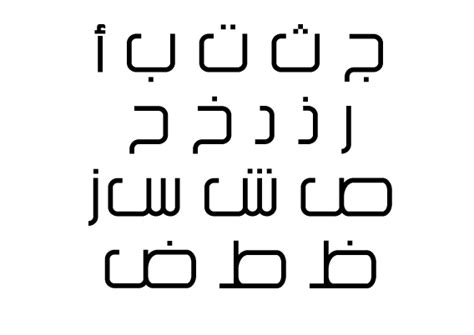
Arabic Inspired Script Fonts / 30 Examples of Beautiful Arabic Typography - SpyreStudios : Bismillah script by mikrojihad typography.. This document also presents information about the arabic opentype shaping engine of uniscribe, the windows component. * arabic font have a cursive flow of letters which make them look heavenly and out of this world. You can customize your experience with live font previews. Futura din helvetica burbank copperplate gothic bold avenir interstate script myriad arial garamond arabic bodoni swiss univers century neutra copperplate avant souvenir minion avalon times gothic switzerland bauhaus bahamas news. No hassle, no fuss, find thousands of high quality free fonts on fontsc.
Droid arabic kufi by pascal zoghbi.
Arabian lamb by fonts bomb. Although fonts are constantly being added to the portal, due to the limited resources of the administration, it is difficult to keep track of all the updates. It is characterized by its decorative and prononced geometric forms well adapted for architectural de. Registered features of the arabic script are defined and illustrated, encodings are listed, and templates are included for compiling arabic layout tables for opentype fonts. We are having a huge archive contains arabic fonts. Kufi one of the oldest and well known arabic scripts. All fonts are categorized and can be saved for quick reference and comparison. Font name newest most downloads. Moreover, our fonts are very rich and of high quality. If you used the kit before, be sure to rate the quality. Bismillah script by mikrojihad typography. With a traditional character, our arabic fonts give your text a very original style. The qur'an is printed in many fonts, they vary from place to place.
This document also presents information about the arabic opentype shaping engine of uniscribe, the windows component. Arabic is written using the arabic script. If you used the kit before, be sure to rate the quality. It is characterized by its decorative and prononced geometric forms well adapted for architectural de. Sil ofl (free for commercial use) 1 font file download.
With a traditional character, our arabic fonts give your text a very original style. Sil ofl (free for commercial use) 1 font file download. Arabic is written using the arabic script. Although fonts are constantly being added to the portal, due to the limited resources of the administration, it is difficult to keep track of all the updates. Bismillah script by mikrojihad typography. ✓ click to find the best 180 free fonts in the arabic style. Registered features of the arabic script are defined and illustrated, encodings are listed, and templates are included for compiling arabic layout tables for opentype fonts. Or tou were searching :
It is classified as an abjad, as it generally only consists of consonant letters, though vowels can be indicated the arabic writing system is most likely derived from the nabataean script.
Fonts that support the arabic script language. Futura din helvetica burbank copperplate gothic bold avenir interstate script myriad arial garamond arabic bodoni swiss univers century neutra copperplate avant souvenir minion avalon times gothic switzerland bauhaus bahamas news. No hassle, no fuss, find thousands of high quality free fonts on fontsc. Arabic is written using the arabic script. It is classified as an abjad, as it generally only consists of consonant letters, though vowels can be indicated the arabic writing system is most likely derived from the nabataean script.
✓ click to find the best 180 free fonts in the arabic style. Arabic is written using the arabic script. All fonts are categorized and can be saved for quick reference and comparison. The earliest form of the script had only 22 characters and could not fully. You can use these fonts to create custom styles. Fonts that support the arabic script language. Arabian lamb by fonts bomb. Some of the fonts are :
Futura din helvetica burbank copperplate gothic bold avenir interstate script myriad arial garamond arabic bodoni swiss univers century neutra copperplate avant souvenir minion avalon times gothic switzerland bauhaus bahamas news.
If you used the kit before, be sure to rate the quality. It is classified as an abjad, as it generally only consists of consonant letters, though vowels can be indicated the arabic writing system is most likely derived from the nabataean script. Archive of freely downloadable fonts. We have 27 free arabic fonts to offer for direct downloading · 1001 fonts is your favorite site for free fonts since 2001. Registered features of the arabic script are defined and illustrated, encodings are listed, and templates are included for compiling arabic layout tables for opentype fonts. The qur'an is printed in many fonts, they vary from place to place. Although fonts are constantly being added to the portal, due to the limited resources of the administration, it is difficult to keep track of all the updates. Arabic is written using the arabic script. You can customize your experience with live font previews. Or tou were searching : We offer fonts for various writing styles in arabic scripts. Fonts that support the arabic script language. Moreover, our fonts are very rich and of high quality.